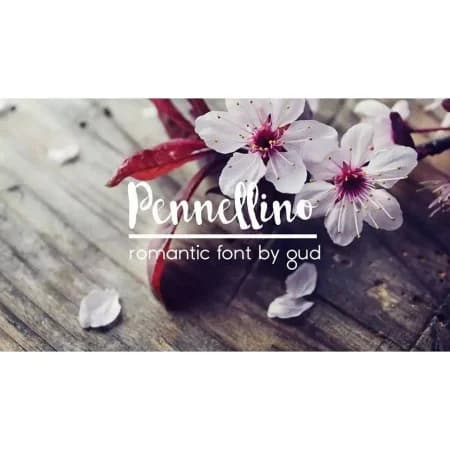
About Pennellino Font
Pennellino by GUD is a hand-lettered script typeface that marries flowing brushwork with consistent letterforms, capturing authentic warmth while maintaining legibility. The organic strokes feel genuinely expressive yet refined, making it ideal for projects requiring both personal character and polished execution. Its balanced approach to handwritten aesthetic suits everything from luxury branding to craft-focused work.
For creatives and makers, Pennellino adapts across numerous formats. Whether designing letterpress stationery suites, creating custom vinyl decals for small business resale, producing boutique product labels for specialty brands, or establishing cohesive identities for independent designers, the font's fluid character translates seamlessly to both digital and physical applications. Crafters will appreciate its smooth curves and intricate letterwork, which render cleanly across cutting machines and various scales while maintaining fine detail and readability throughout.
The typeface's compatibility with cutting technology and design software makes it valuable for professional and DIY work alike. Its consistent rhythm preserves handwritten warmth whether letterforms appear as headlines, body text, or supporting elements across your projects. Discover Pennellino on Creative Fabrica and bring its distinctive handcrafted character to your next creative work.
Pennellino Font is a script font that shines as a display or heading face. Pair it with a clean sans-serif or serif font for body text — the contrast creates a clear hierarchy while the two styles stay balanced and easy to read.